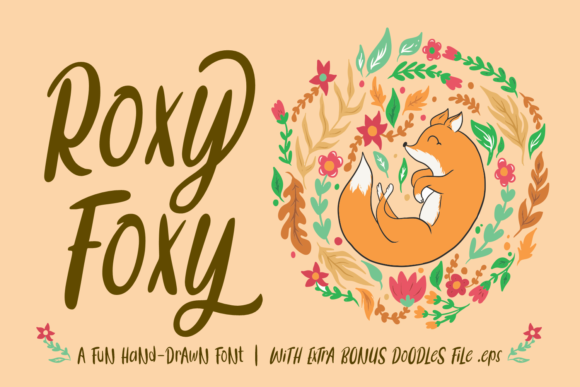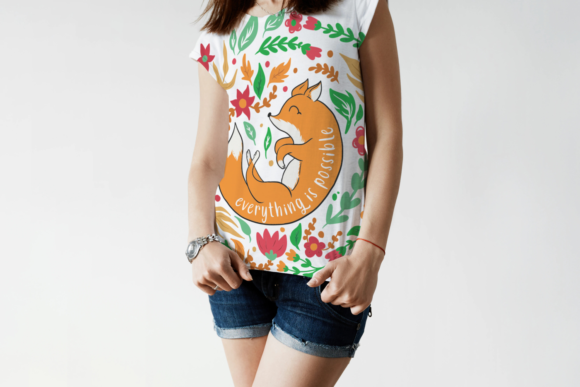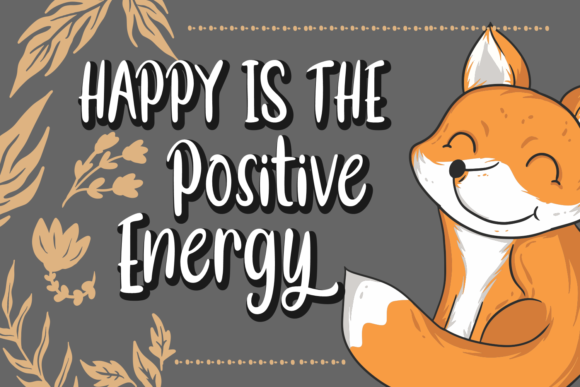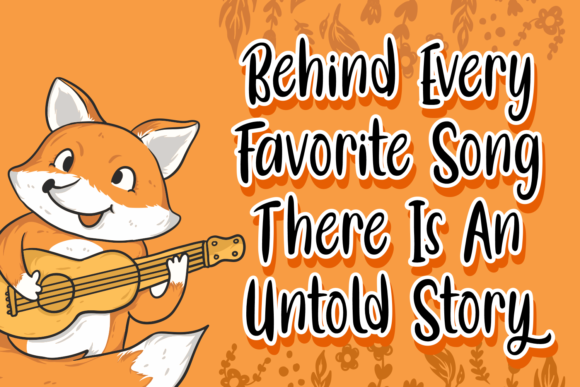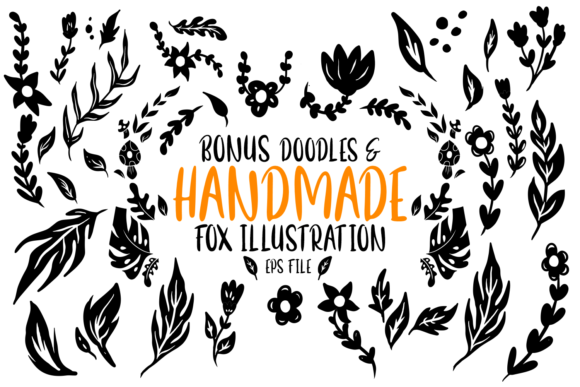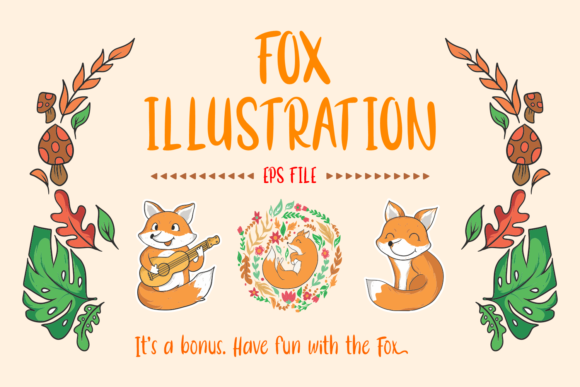
Roxy Foxy Font
About Roxy Foxy Font
The Roxy Foxy is a stunning handwritten font, packed with elegant swashes.
It’s completely drawn by hand, making it a very personal font, allowing you to add a special touch to your designs.